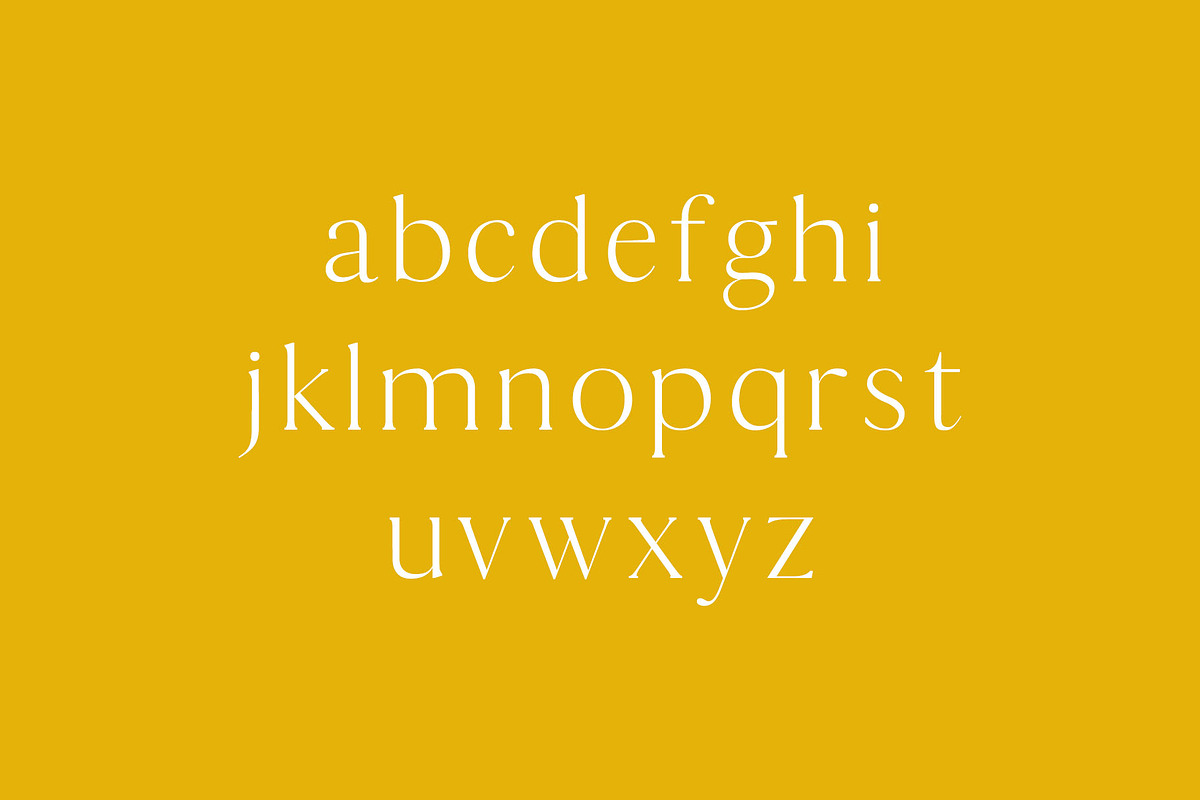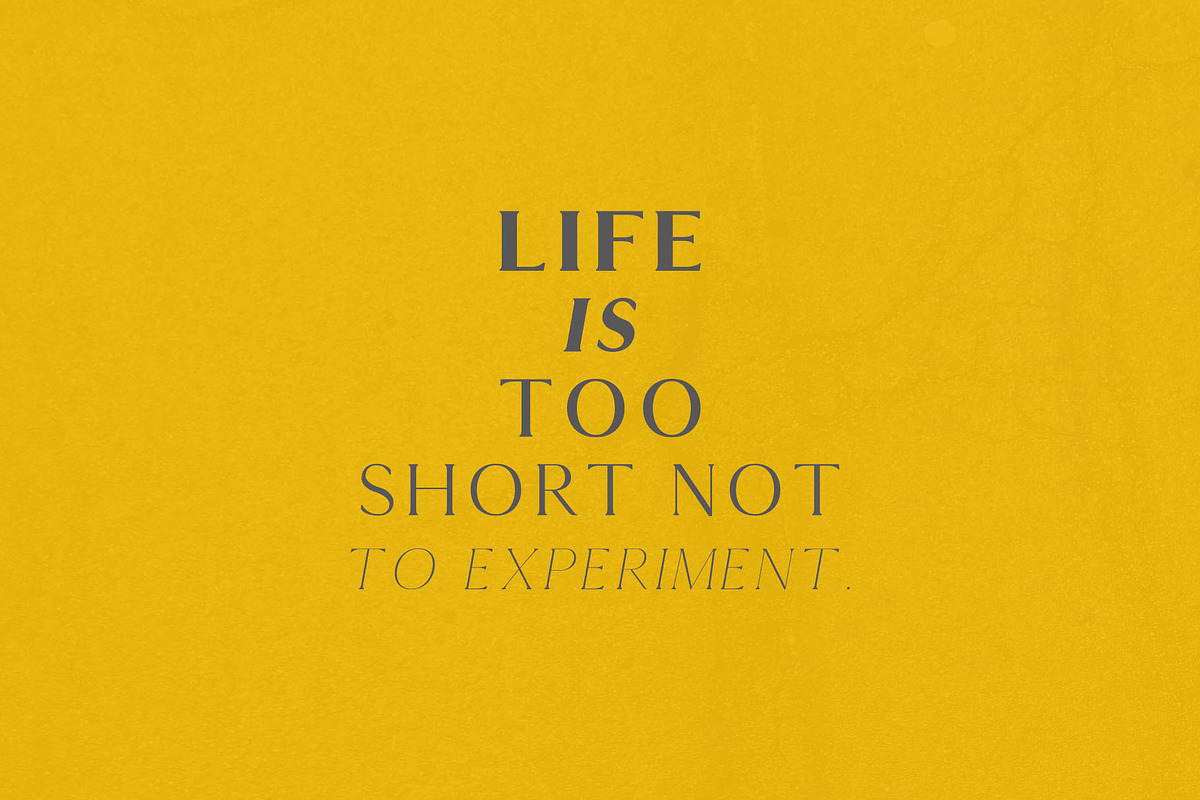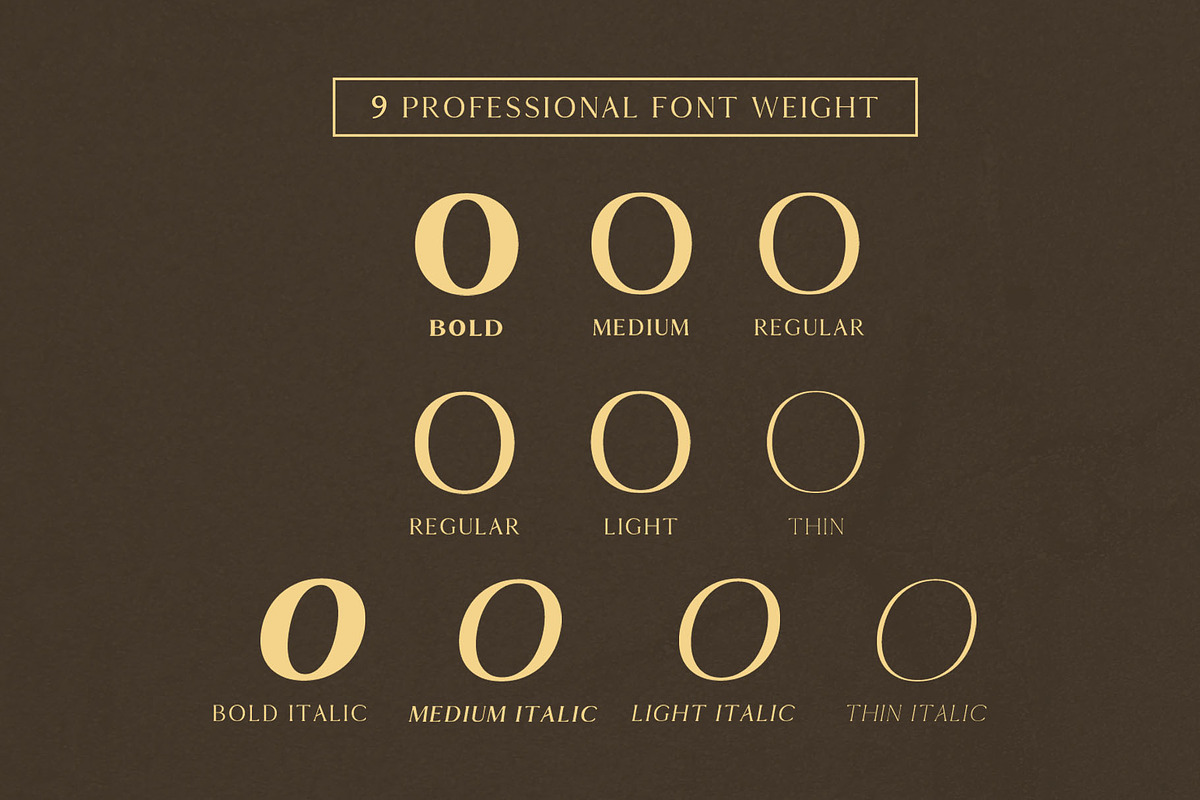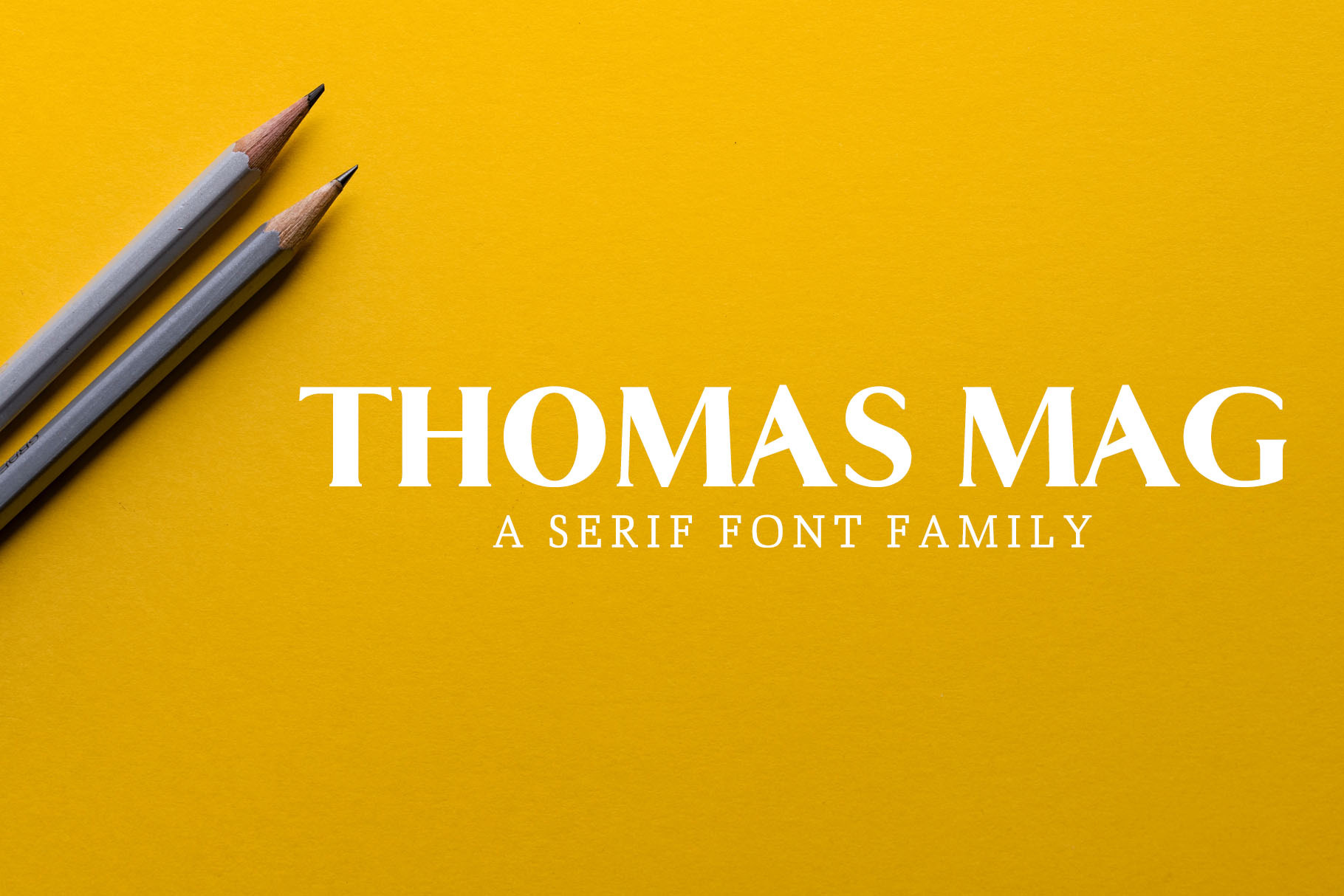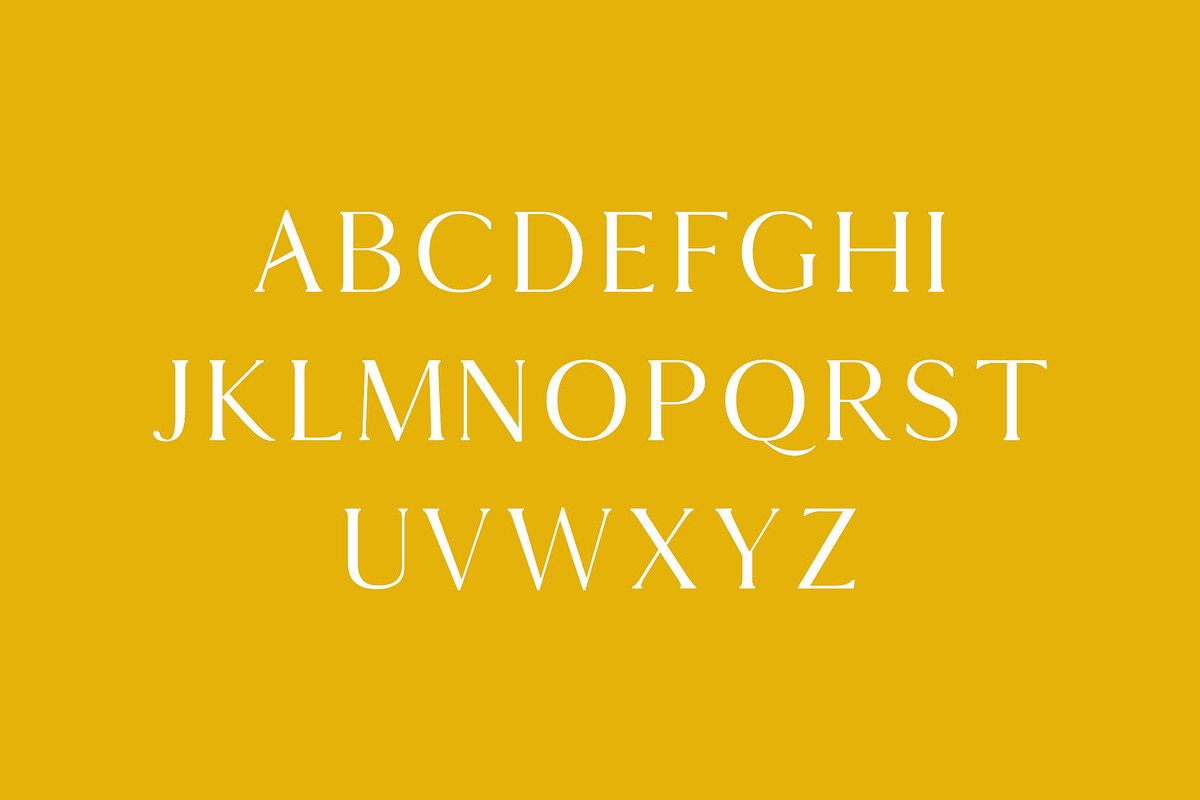
Thomas Mag Serif Fonts Family Pack
Thomas Mag is the perfect typeface to create sleek and elegant logo designs and headlines. It pairs well with both script and serif fonts and features multiple weights.
- Regular, Medium, Bold, Thin and Light and Italic Weights
Thomas Mag Font Features:
- Uppercase Multilingual Letters
- Lowercase Multilingual Letters
- Non English Characters ( Latin Extended A )